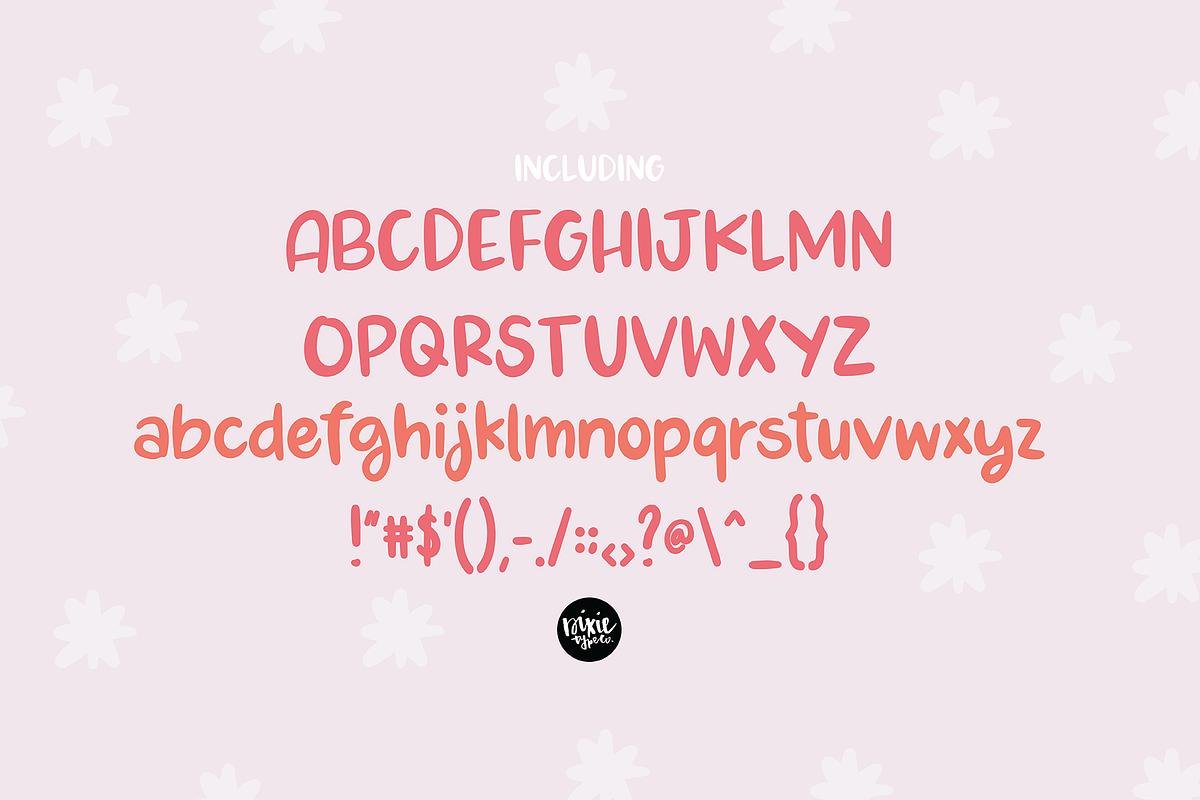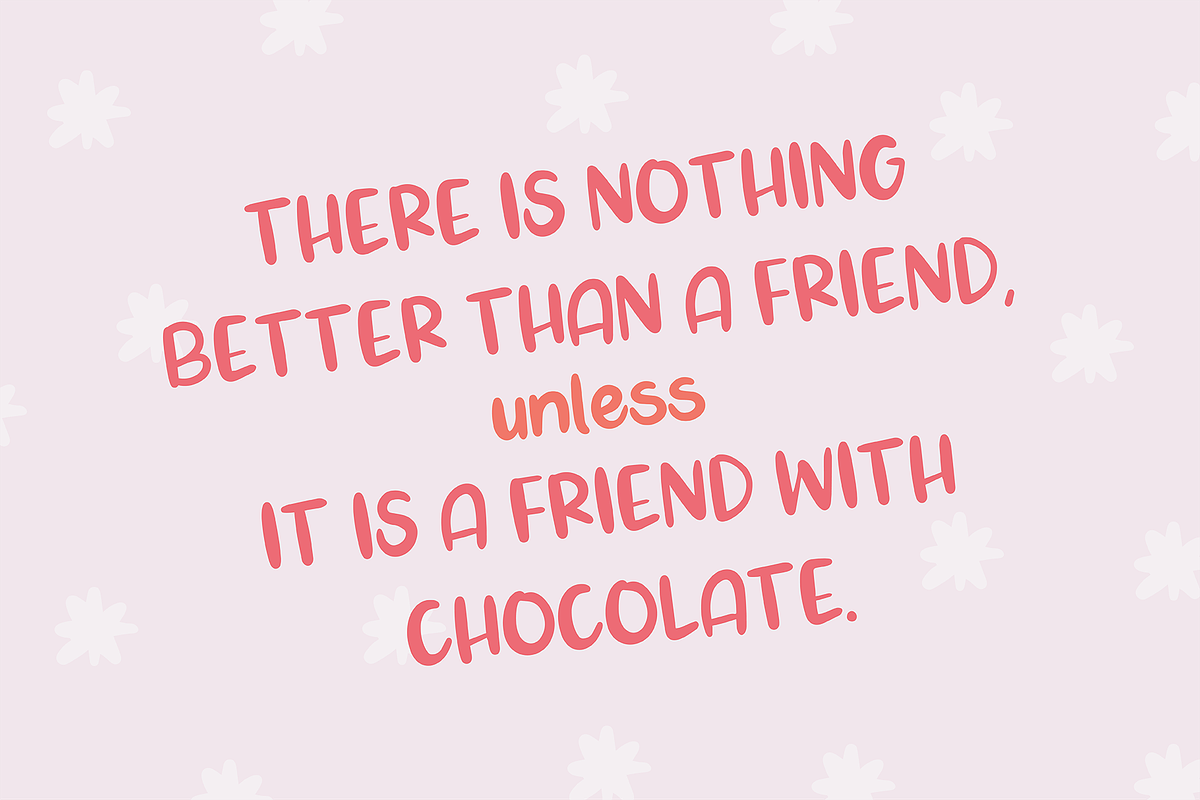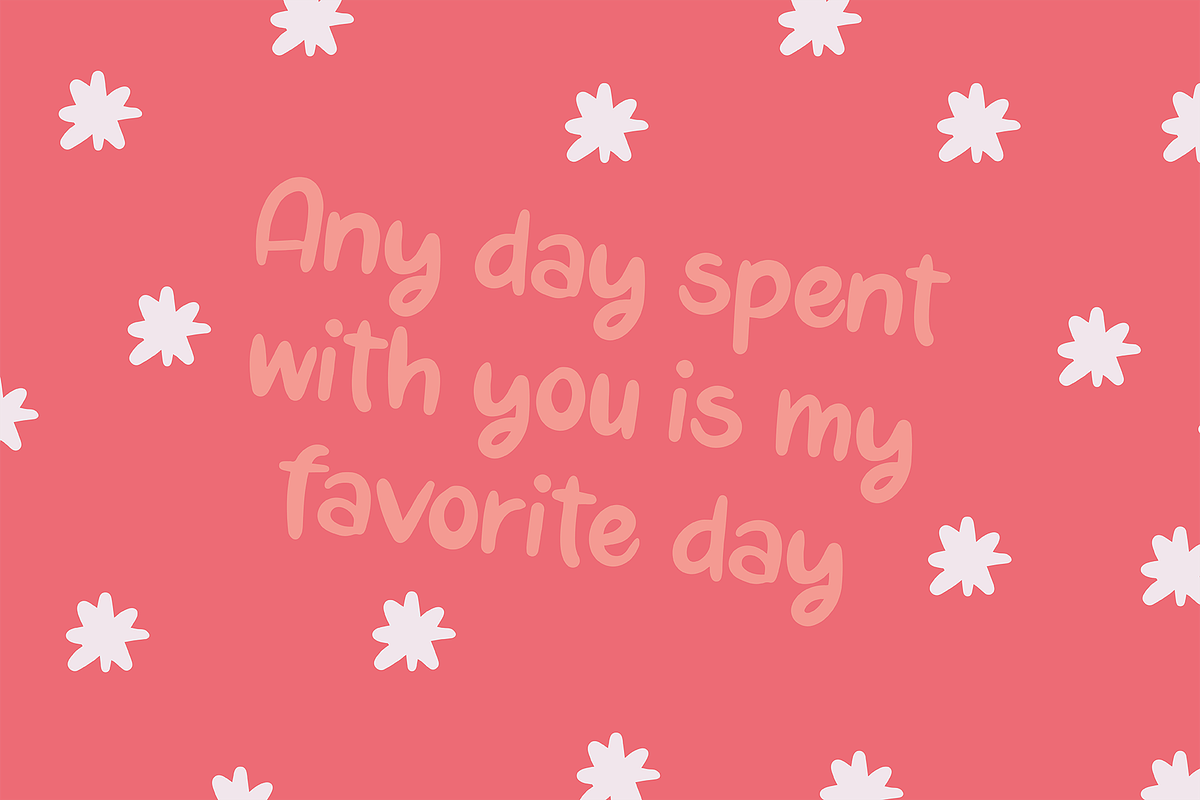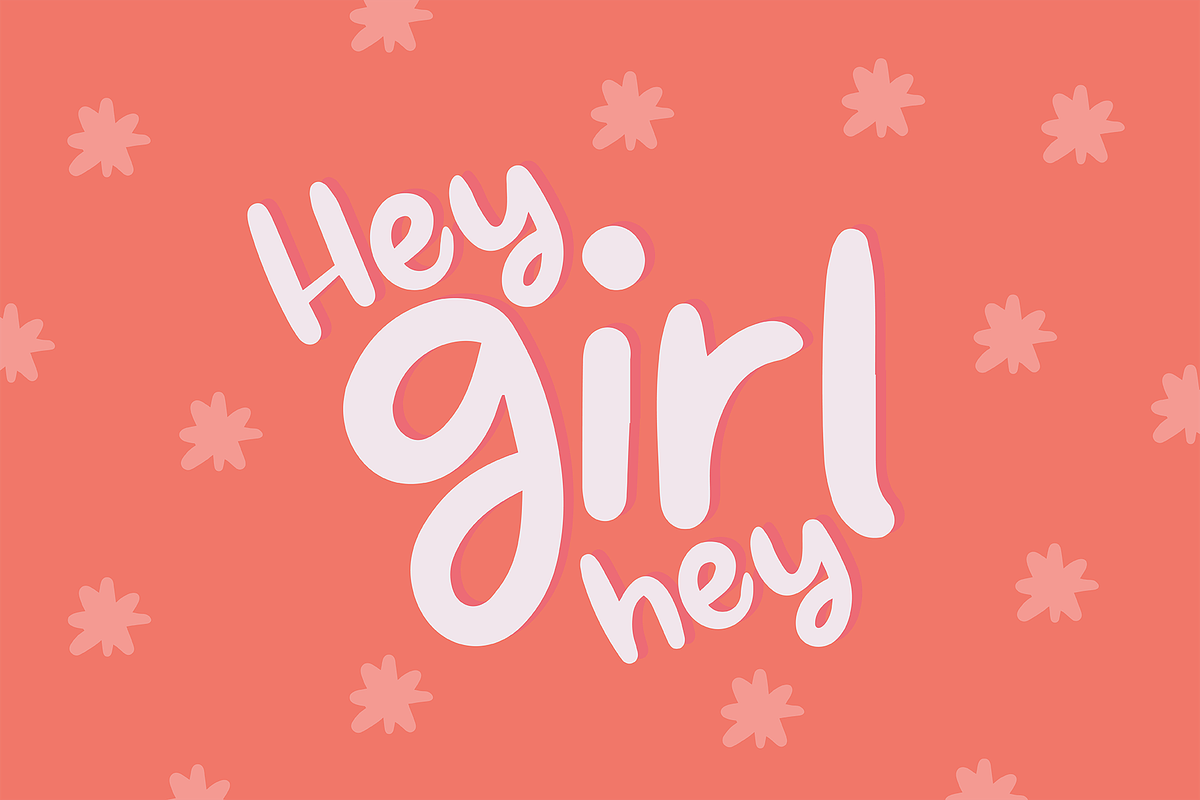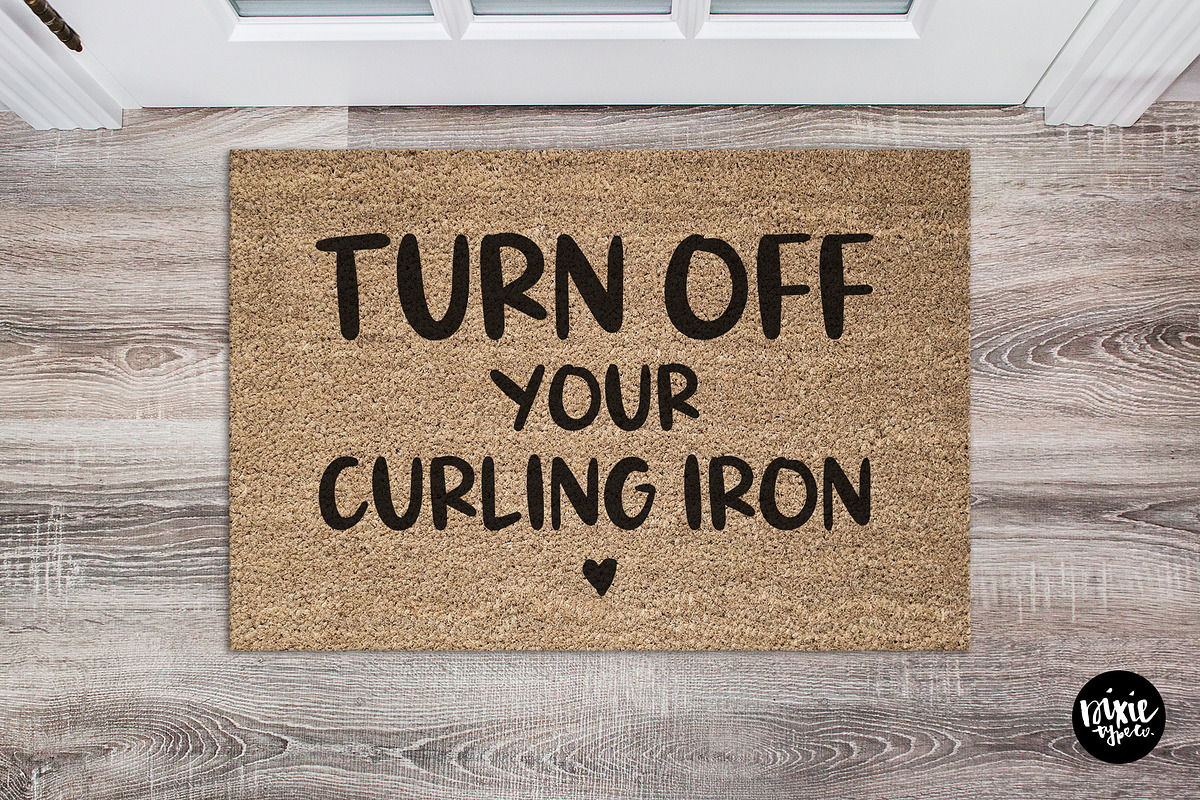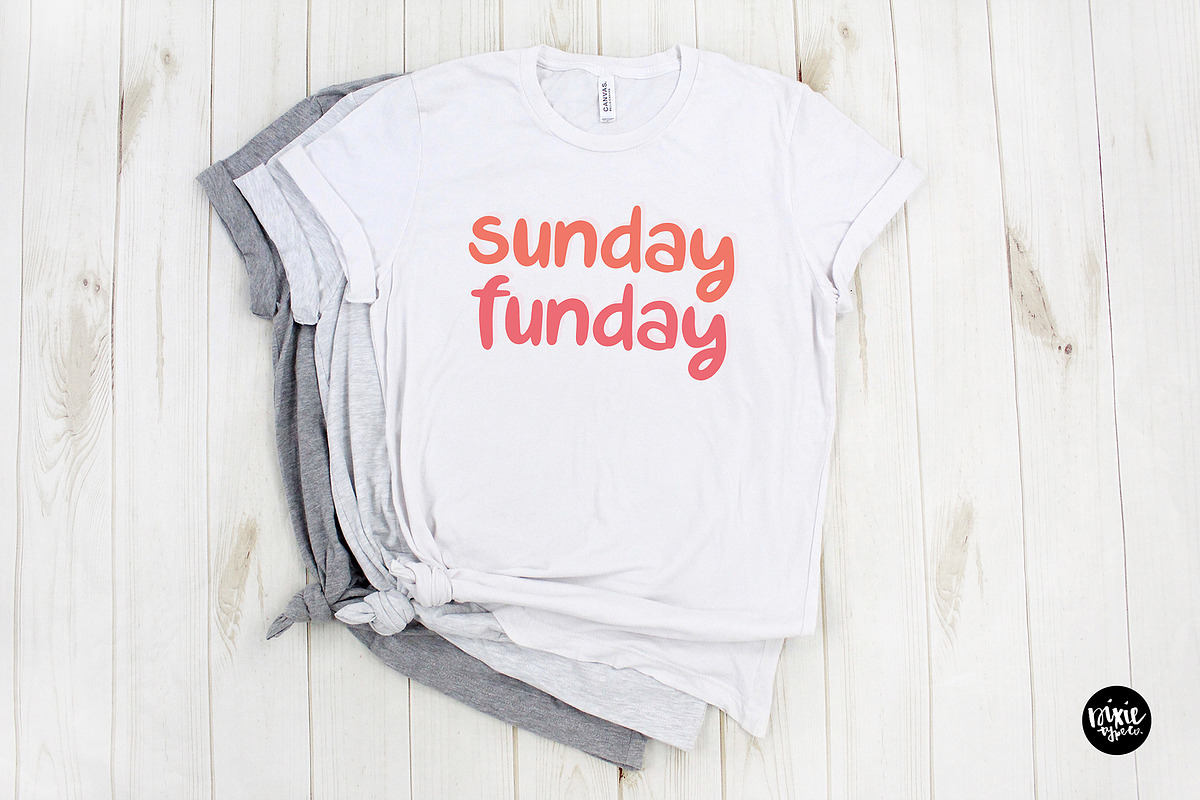
RUBY SANS Hand Lettered .OTF Font
{ A typographic font hand-lettered with love by Dixie Type Co. }
RUBY SANS is casual handwritten sans serif font that will compliment any script font. This works great in projects that use lots of text. Use it on craft projects, party invitations, business cards, party invitations, signs, etc.!
Font includes: Upper and lowercase glyphs Punctuation